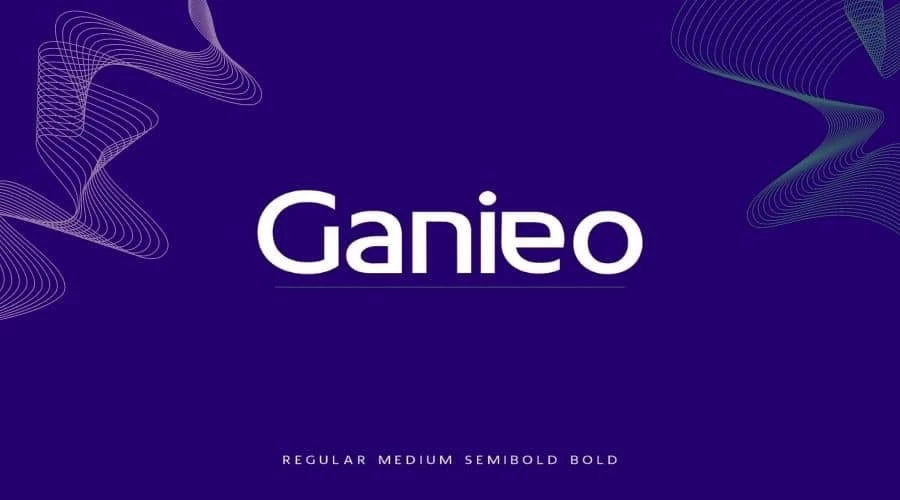
Ganieo font is a minimalist sans-serif font with a modern look. This typeface is a versatile addition to your font collection because of its neat and stylish characters. It supports alternative letters, numbers, small caps, and advanced OpenType functions. I carefully designed the proportions, metrics, and kerning to ensure a perfect reading experience at any size. This design is ideal for branding, brochures, and greeting cards as well as posters, quotes, stationary, headers, and design titles.
Ganieo is a wonderful font for all types of work. This font is ideal for official platforms and design. Ganieo font is great for elegant designs with text. It is beautiful and can be used in formal applications. This font can be used on the following platforms:
• Banner
• Business Card
• Certificate
• Gift card
• Website
• Greetings card
• Brochure.
• Official Documents.